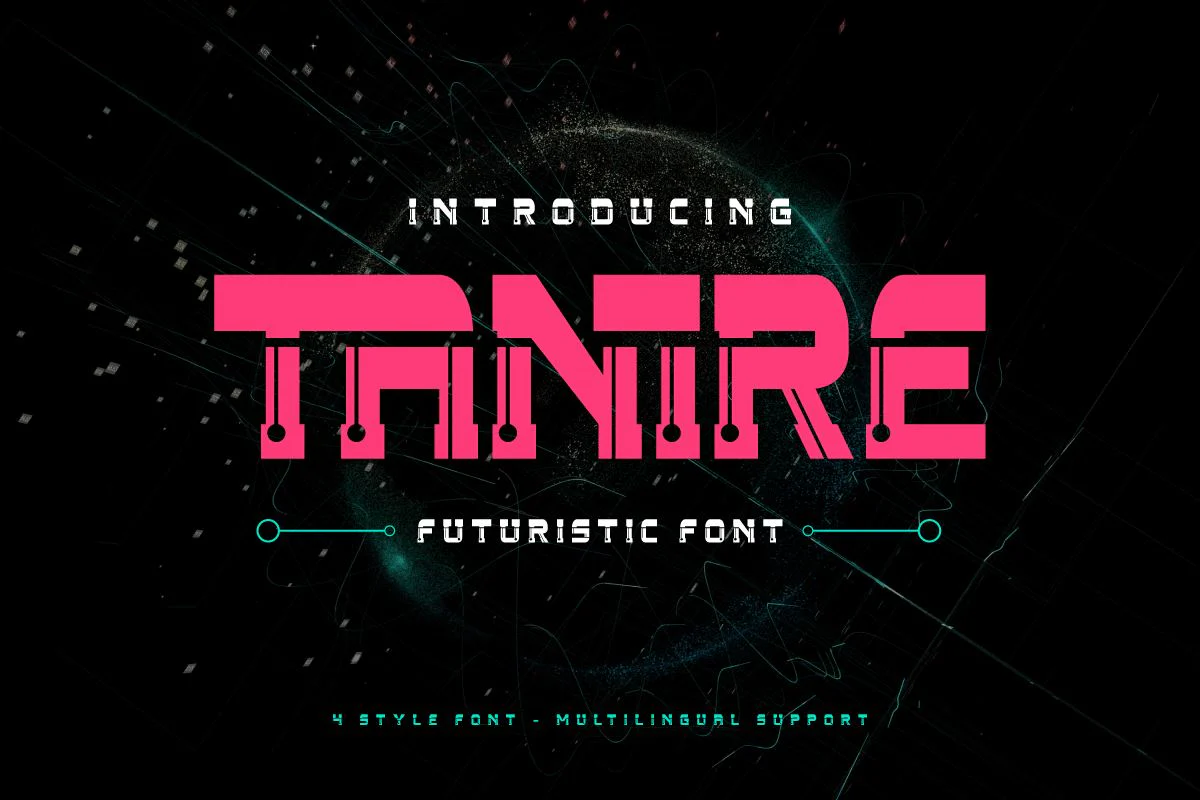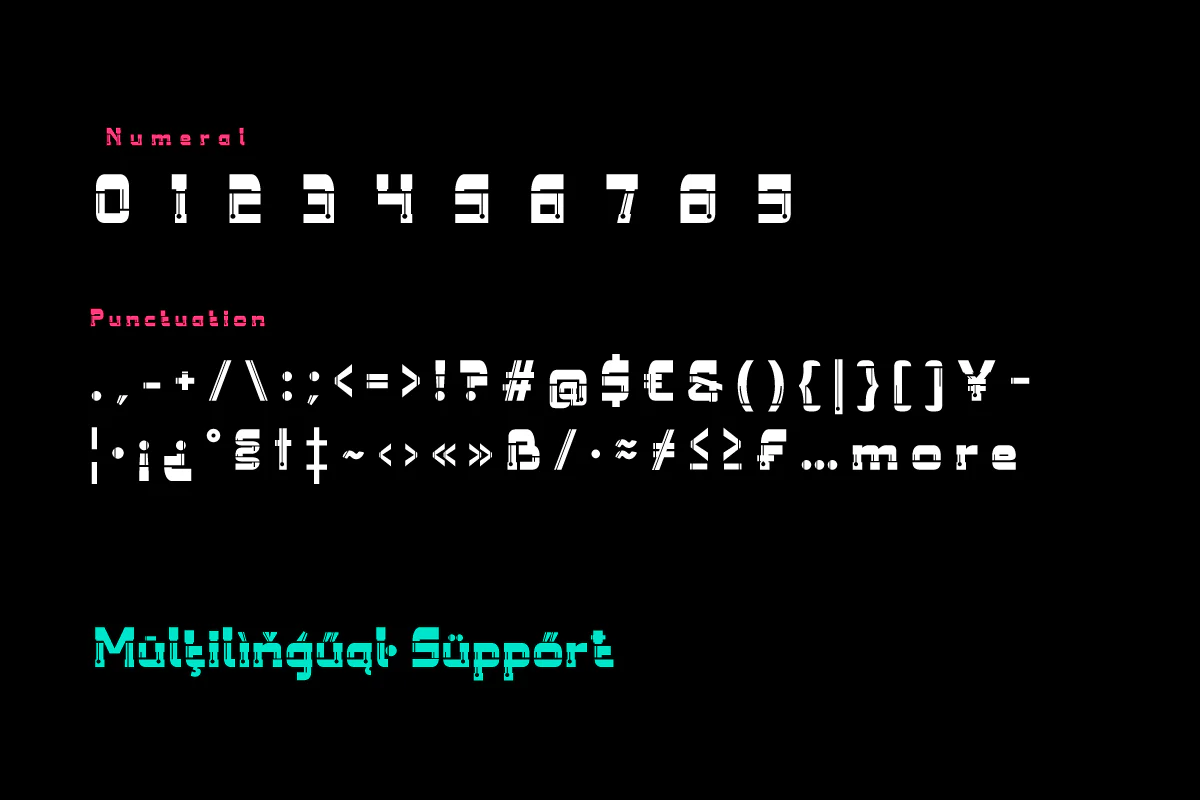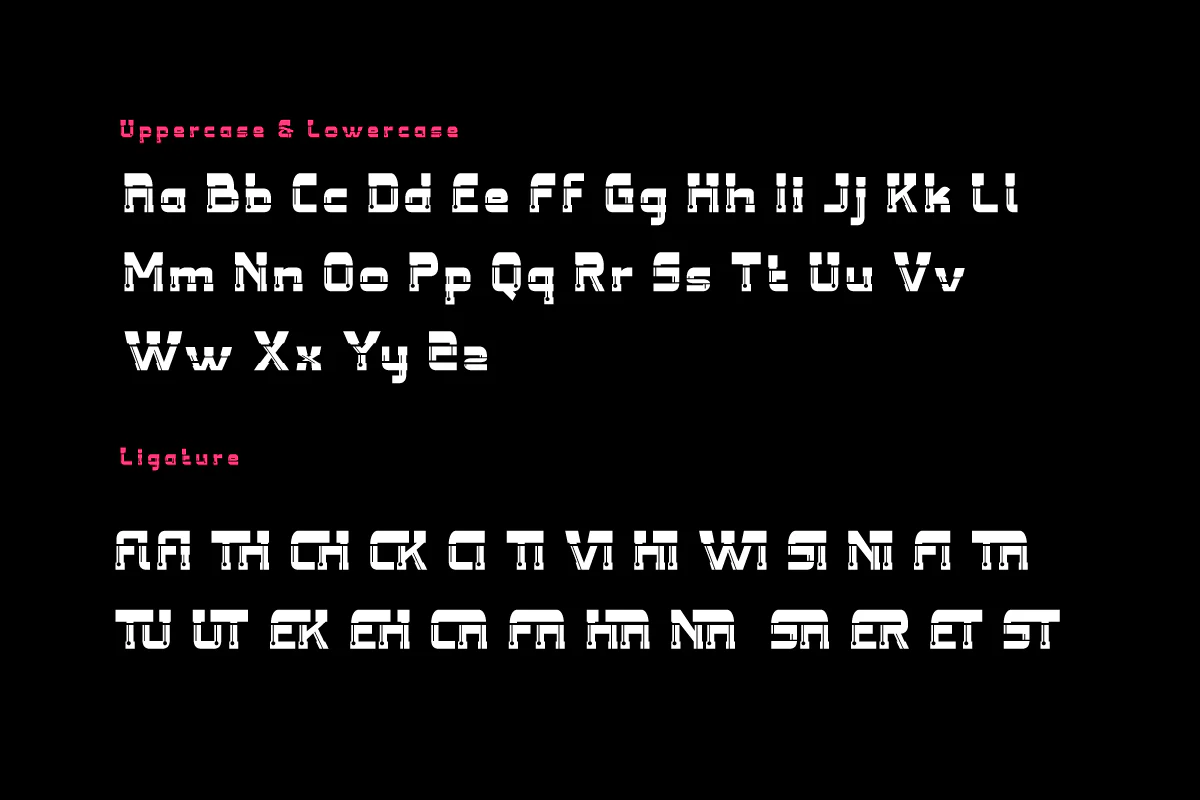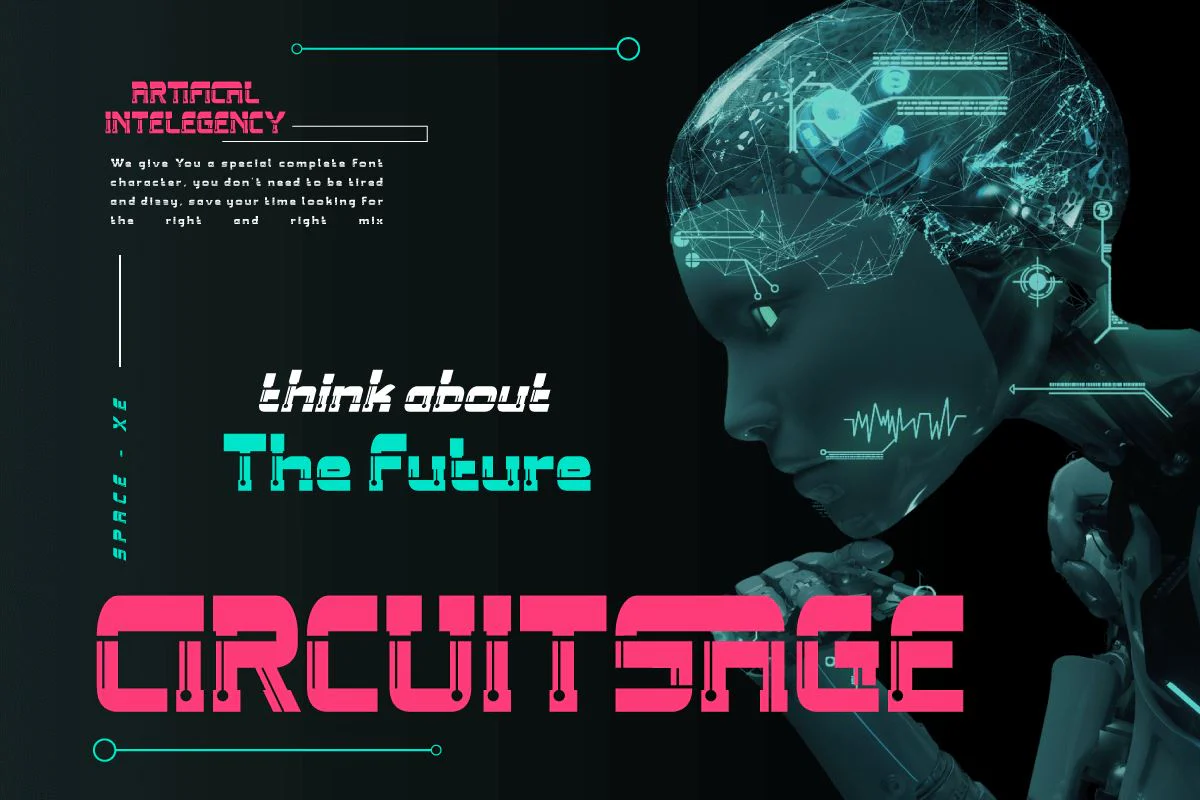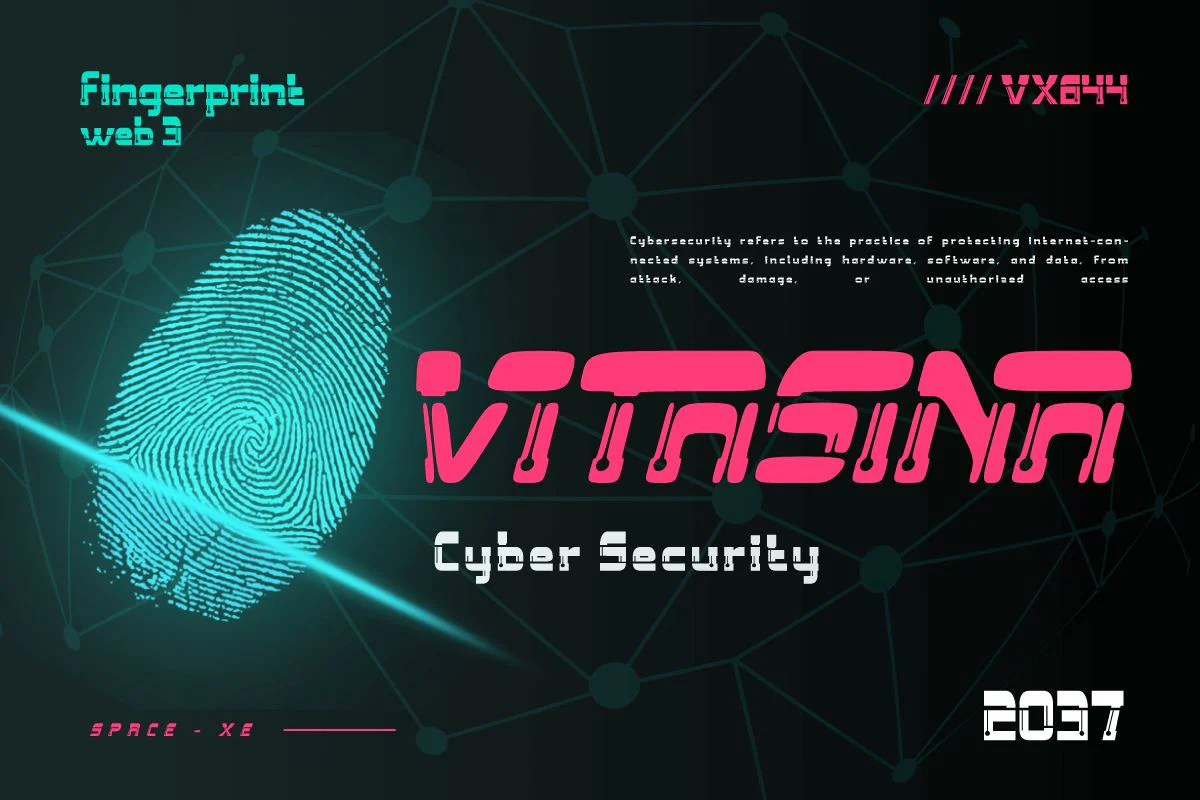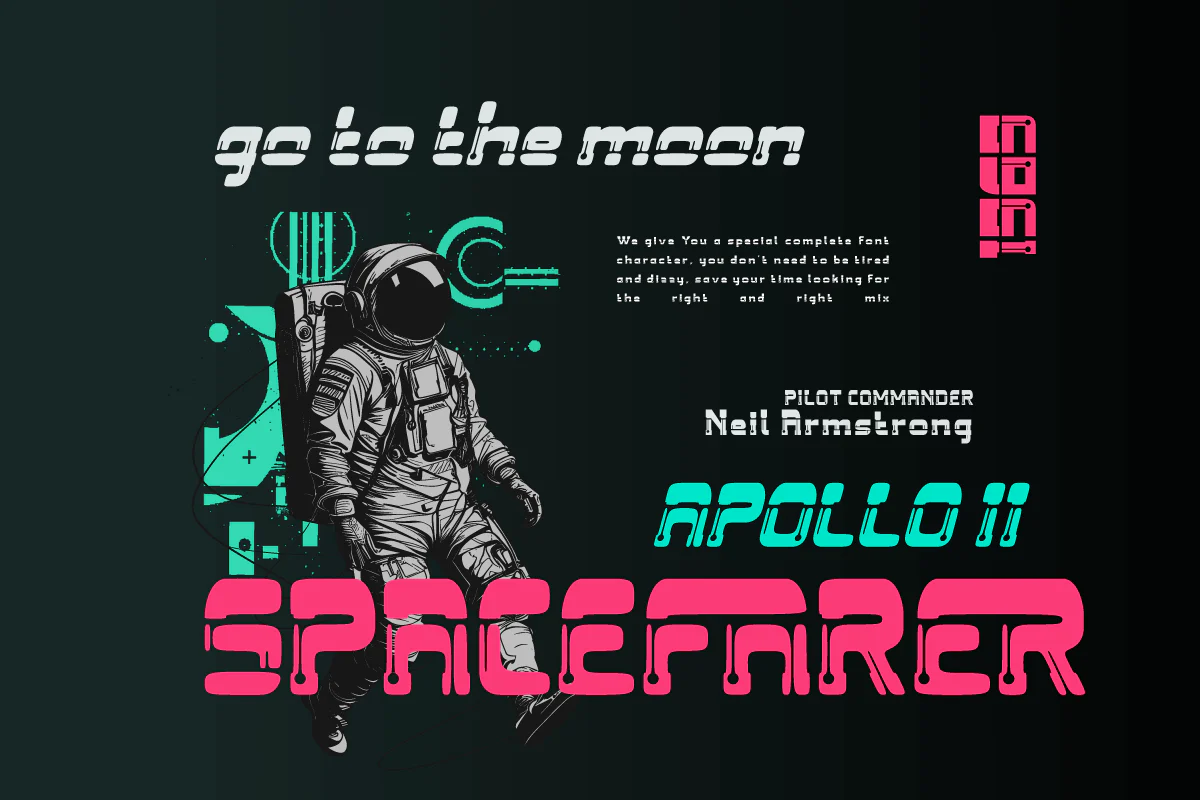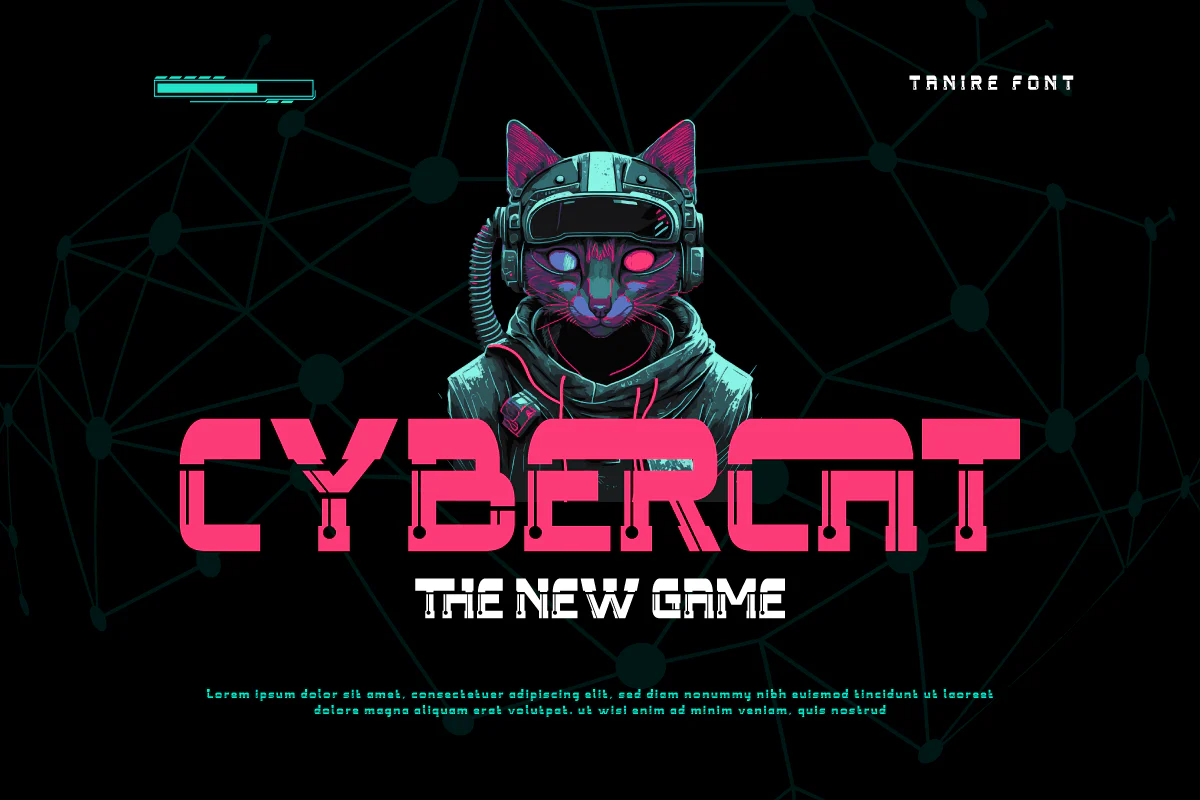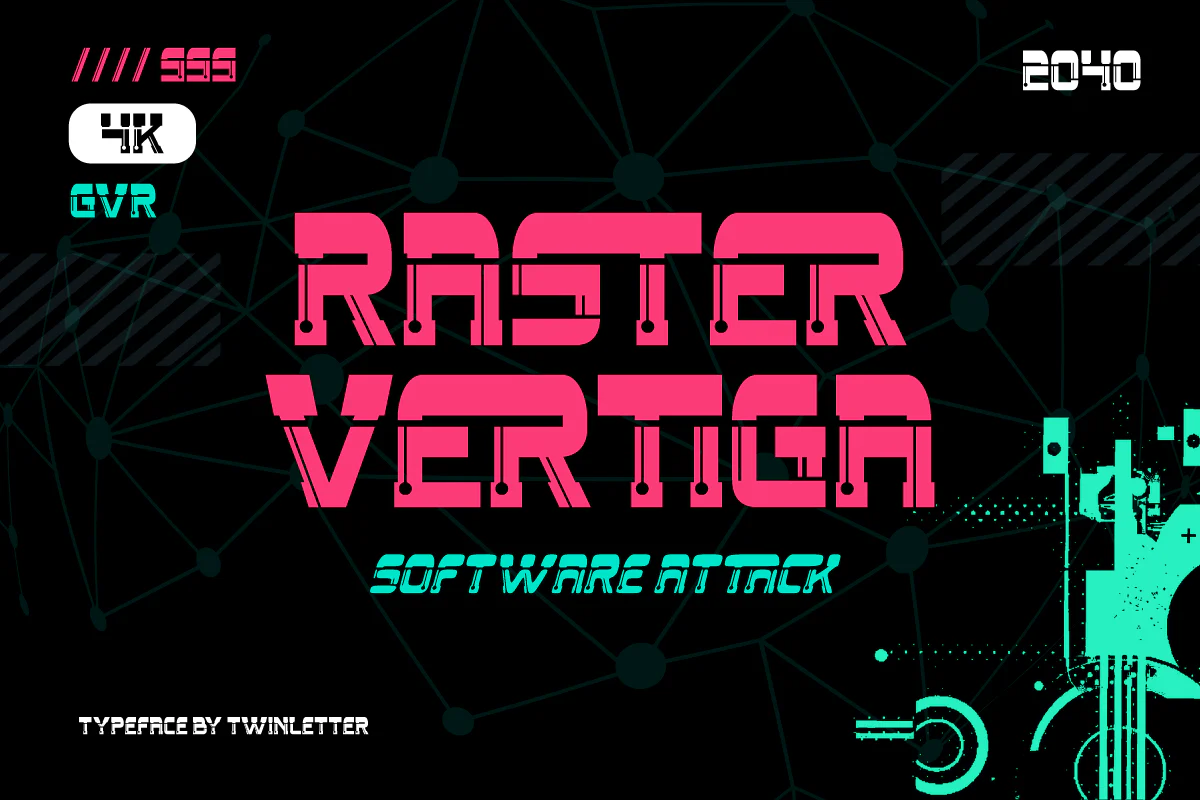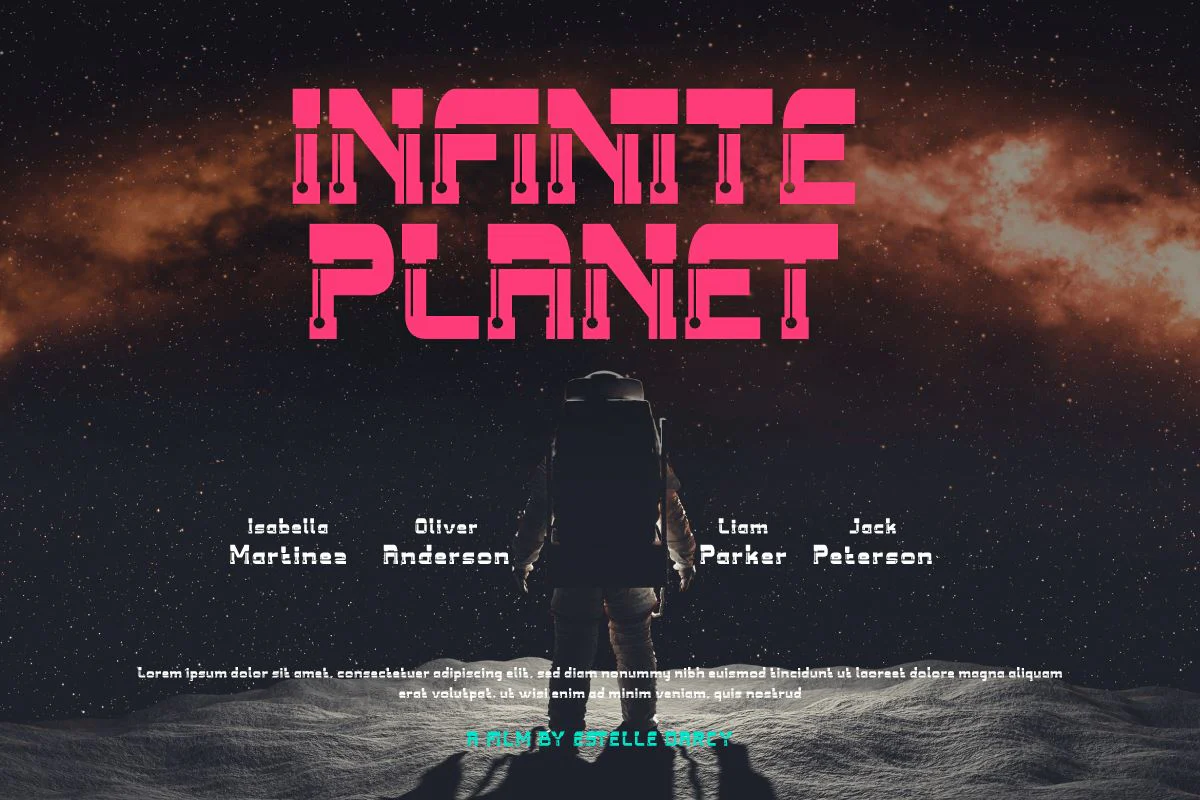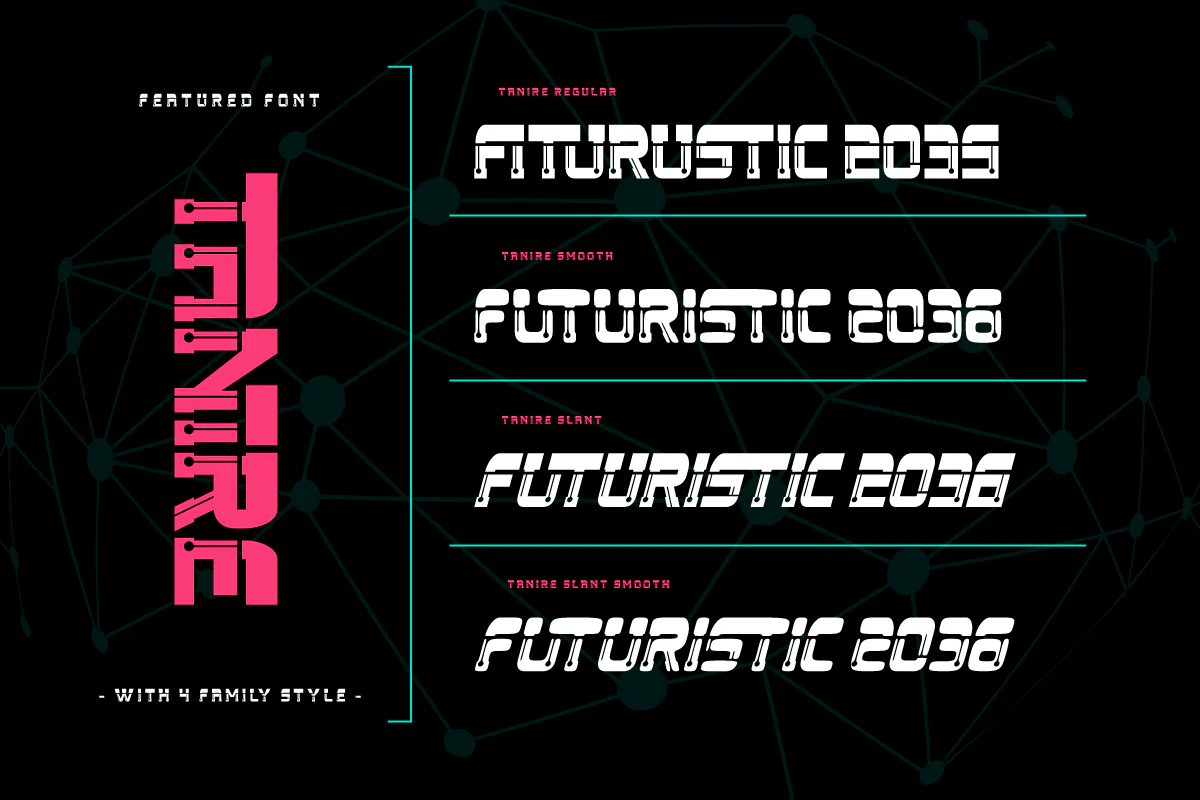
Tanire - Futuristic Tech Font
Embrace the evolution of typography with Tanire, a futuristic technology font that stretches the boundaries of future aesthetics. Designed to lead change and provide innovative visuals, Tanire represents the perfect marriage between modern design and the essence of high technology. With dynamic timelines and sophisticated details, each Tanire letter creates a dazzling display, depicting the speed and sharpness of emerging technology. This font is the perfect choice for design projects that want to celebrate the cutting edge of the world of technology, from web design to the latest products. Tanire's uniqueness lies in his ability to visualize futuristic concepts with clarity and appeal. From movie titles to leading technology brand identities, Tanire provides an innovative typographic canvas to bring your vision to life. With Tanire, bring a future feel to your designs and introduce inspiring visuals. Explore the limitless potential of technology and let Tanire be your guide to bring an unforgettable futuristic touch to each of your projects. What’s Included: - File font OTF, TTF, WOFF, WOFF2, CSS, HTML - All glyphs and variation - We highly recommend using a program that supports OpenType features and Glyphs panels like many Adobe apps and Corel Draw so that you can see and access all Glyph variations. - PUA Encoded Characters – Fully accessible without additional design software. - Fonts include Multilingual support